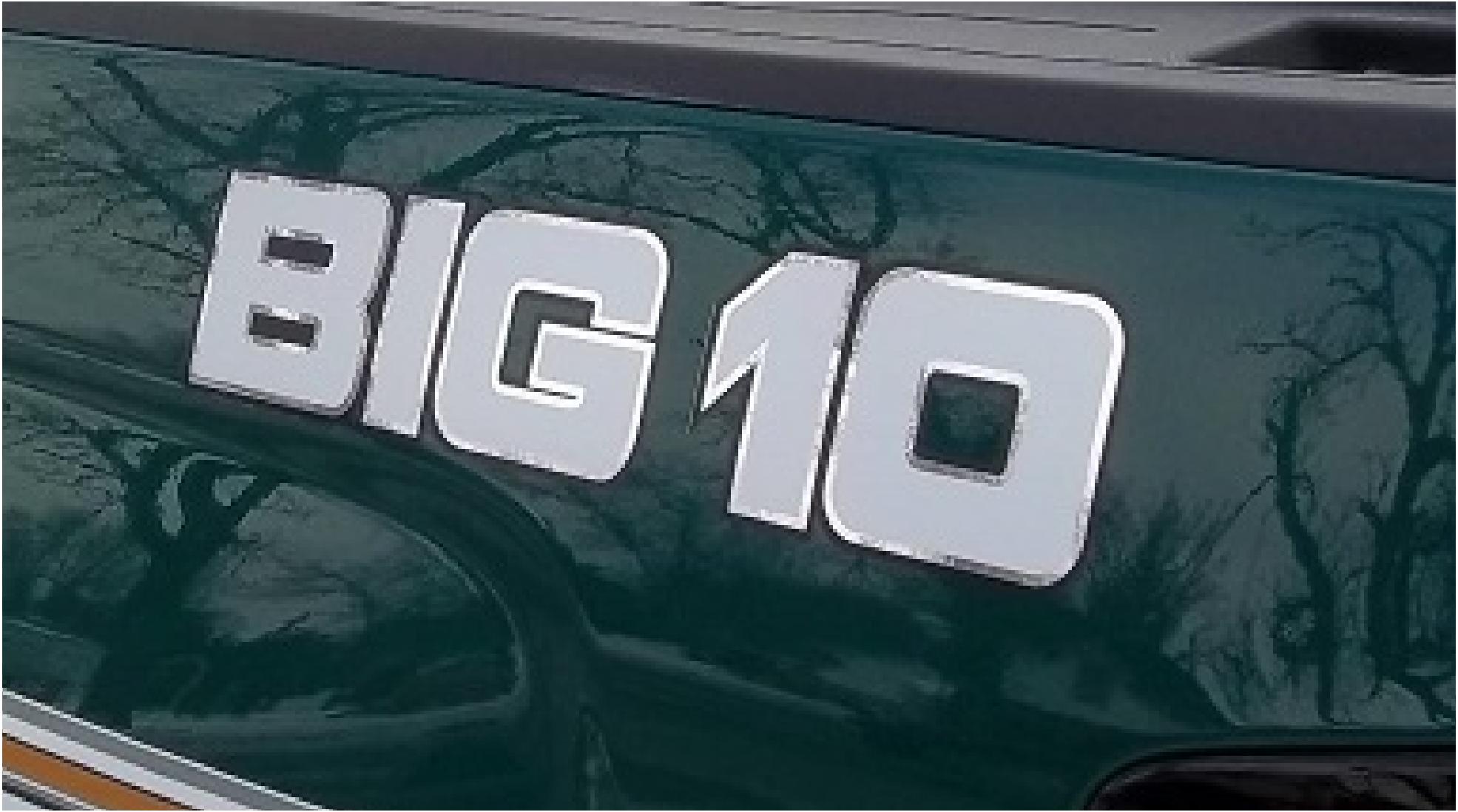
FONT HELP "BIG 10"
BIG 10 for Chevy P/u
Not an exact match for the #1 but that can be altered...
Square721 BdEx and looks like a silver contour was added to it